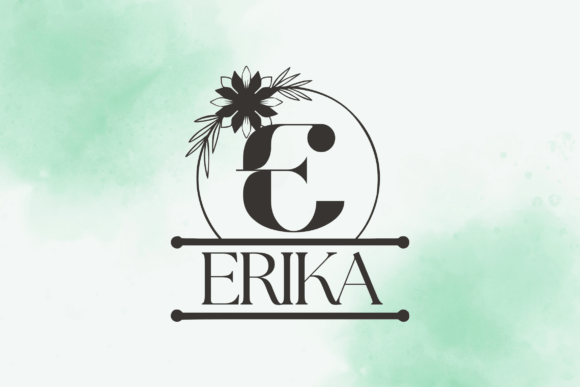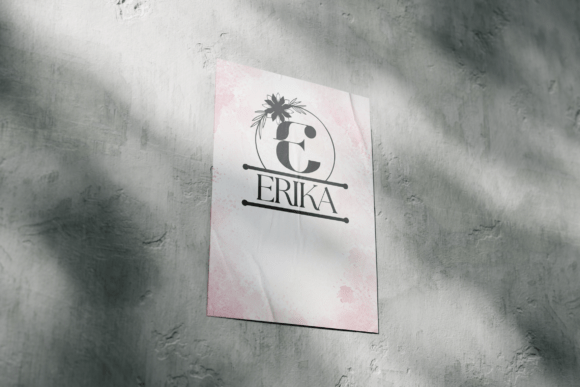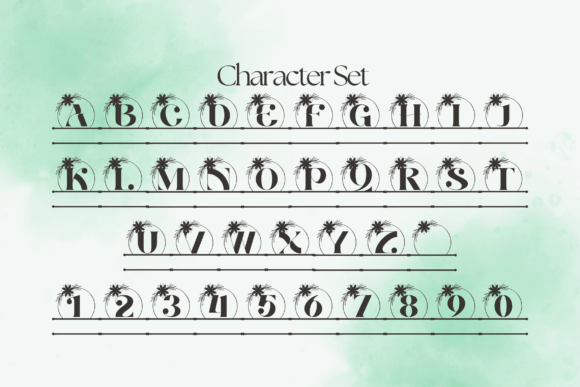
Designing with Elegance: The Aether Monogram Line Font
Have you ever been in a creative flow, pouring your heart and soul into a project, and then it hits you – the perfect combination of typography and design that elevates your entire work? That’s exactly what happens when you incorporate the Aether Monogram Line Font into your designs. This stunning typeface is specifically crafted for creating show-stopping monograms, logos, and personalized branding that exudes luxury and sophistication.
As a designer, you understand the importance of having the right tools at your disposal to bring your vision to life. The Aether Monogram Line Font is an invaluable addition to any design arsenal, offering refined letterforms and intricate details that add a touch of class and uniqueness to any project. Whether you’re designing wedding invitations, luxury branding, or custom crafts, this font is sure to impress.
Aether Monogram Line Font Key Features
- Font Family: Aether Monogram Line is a unique, hand-drawn monogram font with a modern twist.
- Unique Characteristics: This font features intricate line work, custom monogram designs, and a touch of elegance, making it perfect for wedding invitations, branding, and luxury designs.
Aether Monogram Line Font Review
I recently had the chance to work with the Aether Monogram Line Font, and I have to say, it’s a mixed bag. ✨
- ✨ I love how versatile the font is. It’s perfect for creating elegant, high-end designs, but it’s also great for adding a touch of sophistication to more casual projects.
- ✨ The Aether Monogram Line Font is highly customizable, with a wide range of weights, styles, and line widths to choose from. This makes it easy to get the look you want, whether you’re going for a modern, minimalist vibe or something more ornate.
- ✨ The font is also surprisingly legible, even at smaller sizes, which is a major plus for designers who need to ensure their text is readable across various devices and platforms.
- ⚠️ The font can be a bit too ornate for some designs. If you’re going for a more minimalist look, the Aether Monogram Line Font might feel overwhelming.
- ⚠️ Some of the line widths can be a bit inconsistent, which can affect the overall flow and rhythm of your design.
- ⚠️ The font may not be the best choice for projects that require a lot of bold, attention-grabbing text, as it can get lost in the background.
Overall, the Aether Monogram Line Font is a solid choice for designers who want to add a touch of elegance and sophistication to their projects. With a little finesse and experimentation, you can create some truly stunning designs with this font. Just be aware of its limitations and use it wisely.
Aether Monogram Line Font is ideal for creating elegant and sophisticated designs. Some common use cases include:
- Event signage and banners
- Luxury branding and packaging
Alternatives to Aether Monogram Line Font
Pacifico is a beautiful, modern script font that works well for titles, headings, and even body text. It’s ideal for creative projects, wedding invitations, and branding materials. Pacifico has a softer, more elegant feel compared to Aether Monogram Line Font, which is more geometric and minimalist. Use Pacifico when you want to add a touch of sophistication and whimsy to your design.
Great Vibes is a stylish, handwritten font that’s perfect for quotes, titles, and other short text elements. It has a more casual, relaxed feel compared to Aether Monogram Line Font, making it suitable for social media graphics, posters, and other informal designs. Great Vibes is also more versatile and can be used in a variety of contexts, from fashion to food branding.